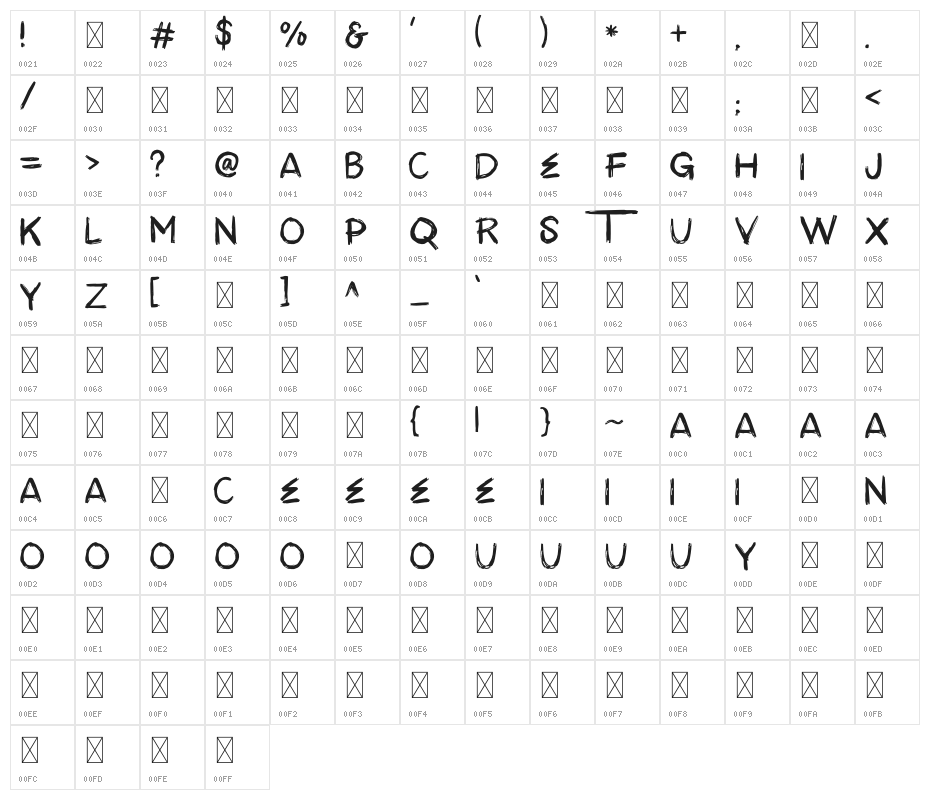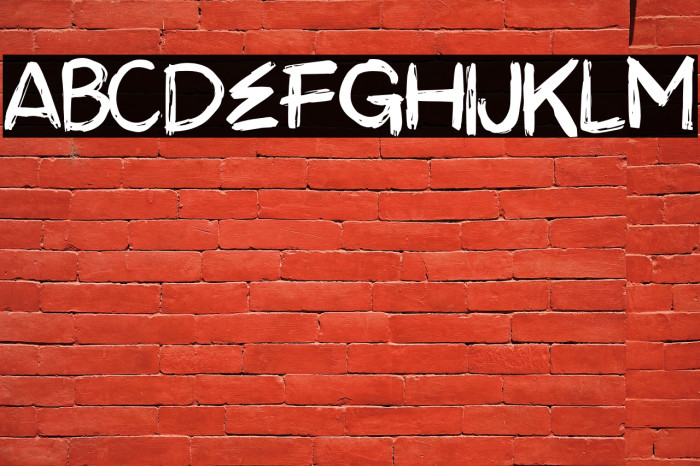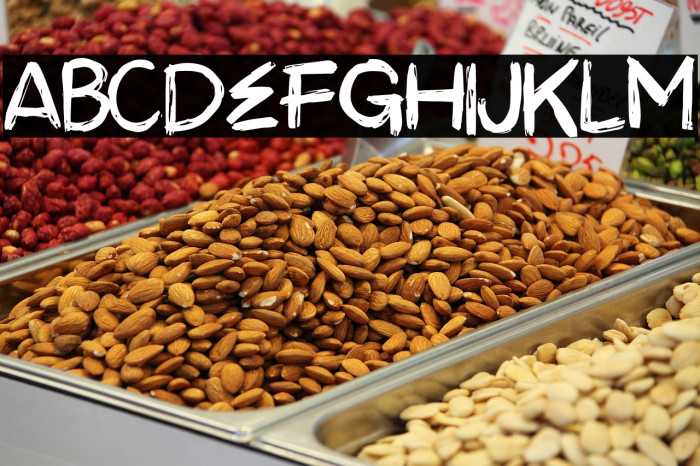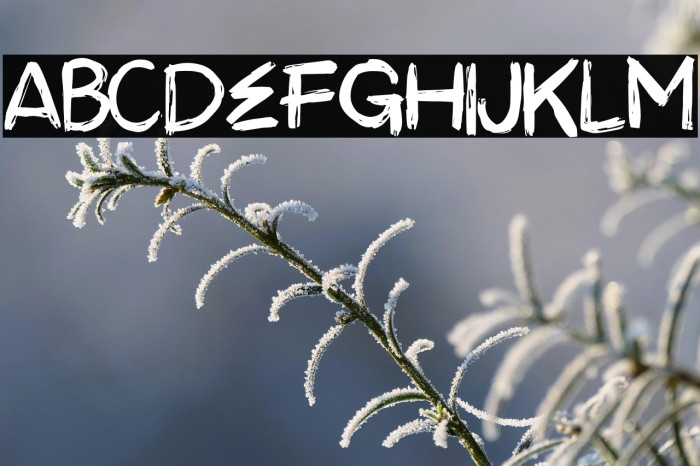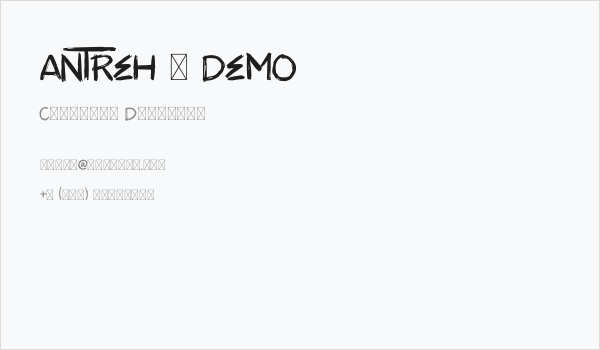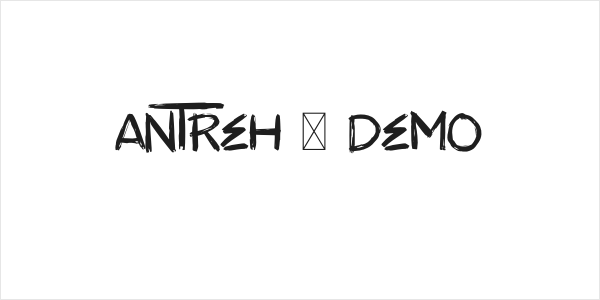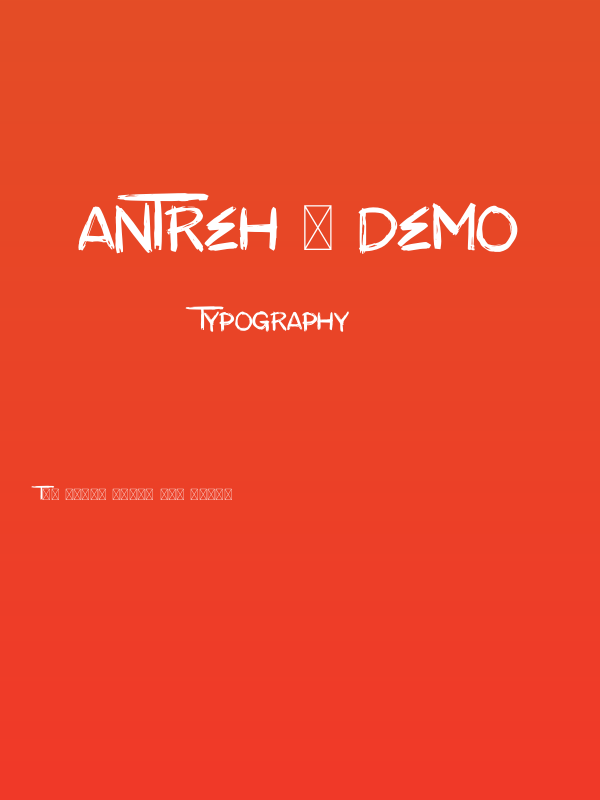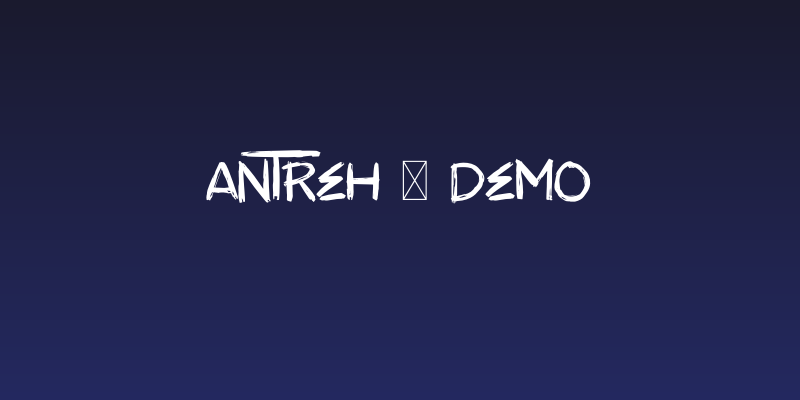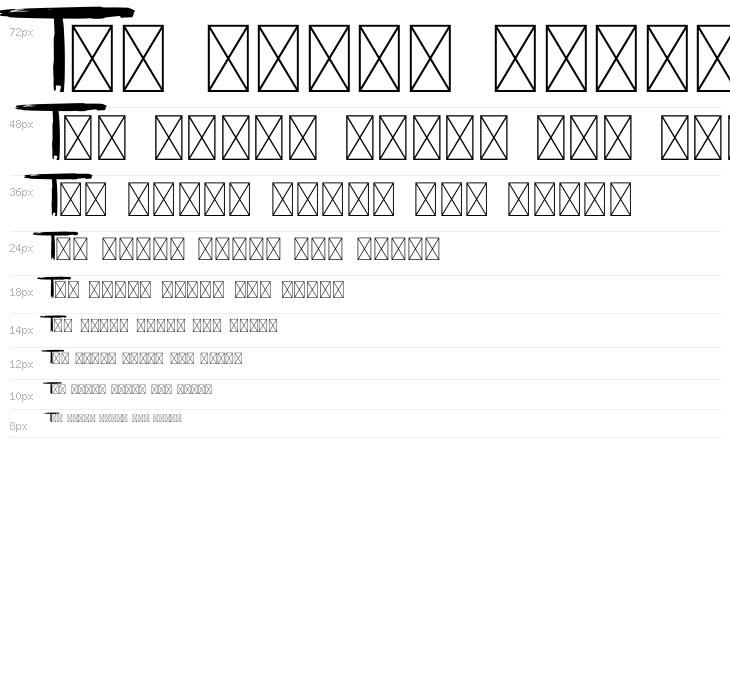
ANTREH - DEMO Font
ANTREH - DEMO Description
This font exhibits a bold and expressive style, characterized by its brush-like strokes and dynamic appearance. The uppercase letters are particularly striking, with uneven edges and a sense of movement that suggests a hand-drawn quality. The font's design incorporates a sense of spontaneity and energy, making it ideal for projects that require a bold statement. The special characters maintain the same energetic style, ensuring consistency across all glyphs. This font is well-suited for creative and artistic applications where a strong visual impact is desired.
| Proposed Projects | Ideal for posters, album covers, branding projects, and any creative work that requires a bold and artistic touch. |